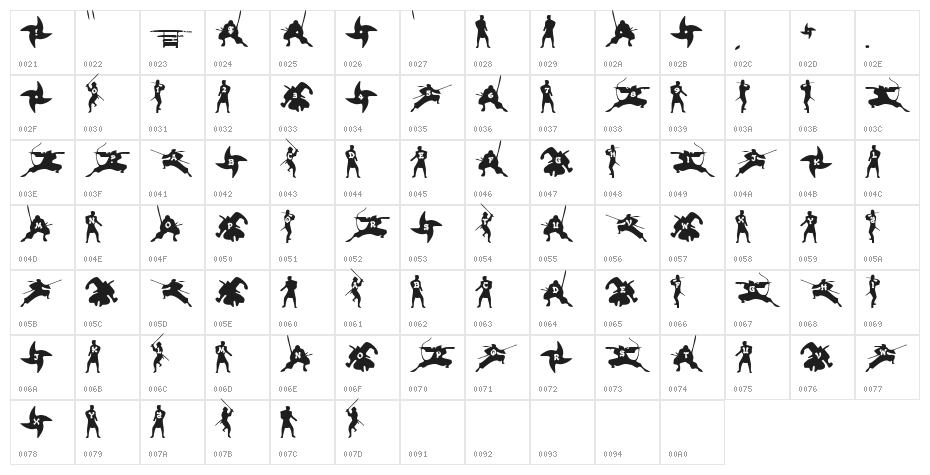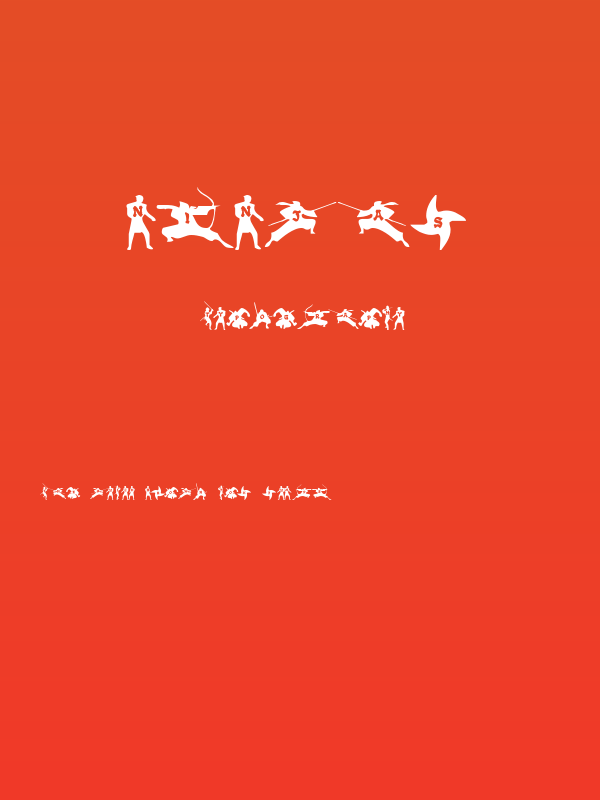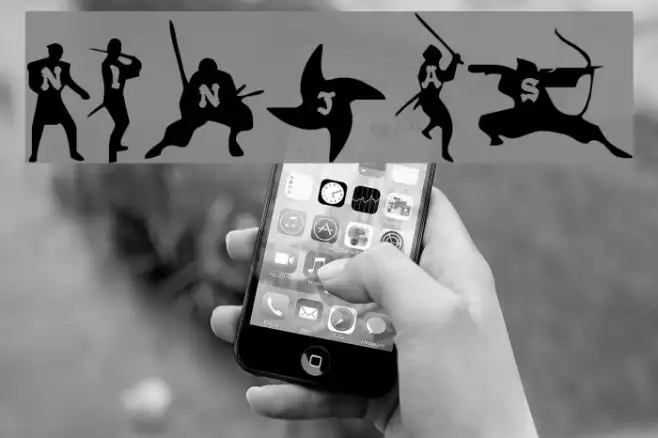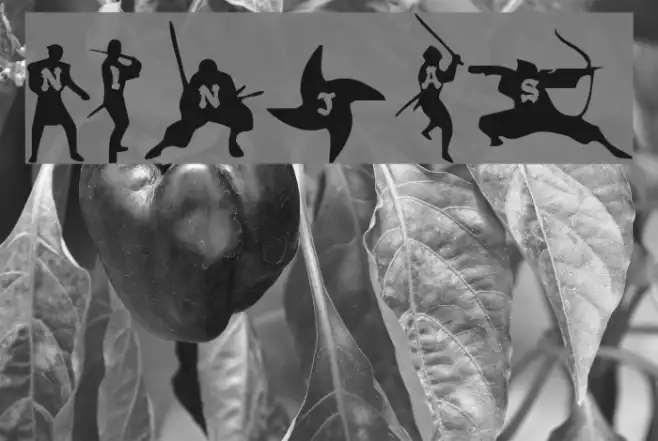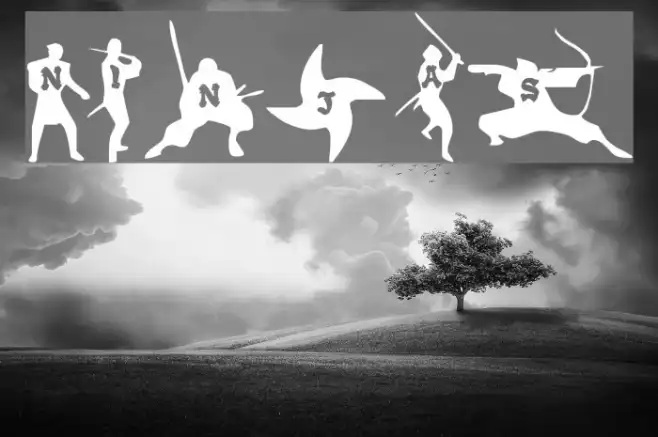
Ninjas Font
Ninjas Description
This unique font features silhouettes of ninjas in various action poses, creatively forming each letter and number. The characters are dynamic and full of movement, with each letter incorporating a ninja figure wielding weapons or performing martial arts moves. The design is bold and striking, with a strong emphasis on the ninja theme, making it highly decorative and thematic. The font is perfect for projects that require a sense of adventure, action, or an Asian cultural influence. It stands out due to its playful yet powerful imagery, capturing the essence of stealth and agility associated with ninjas.
| Proposed Projects | Ideal for themed posters, video game titles, martial arts event flyers, and comic book covers. |